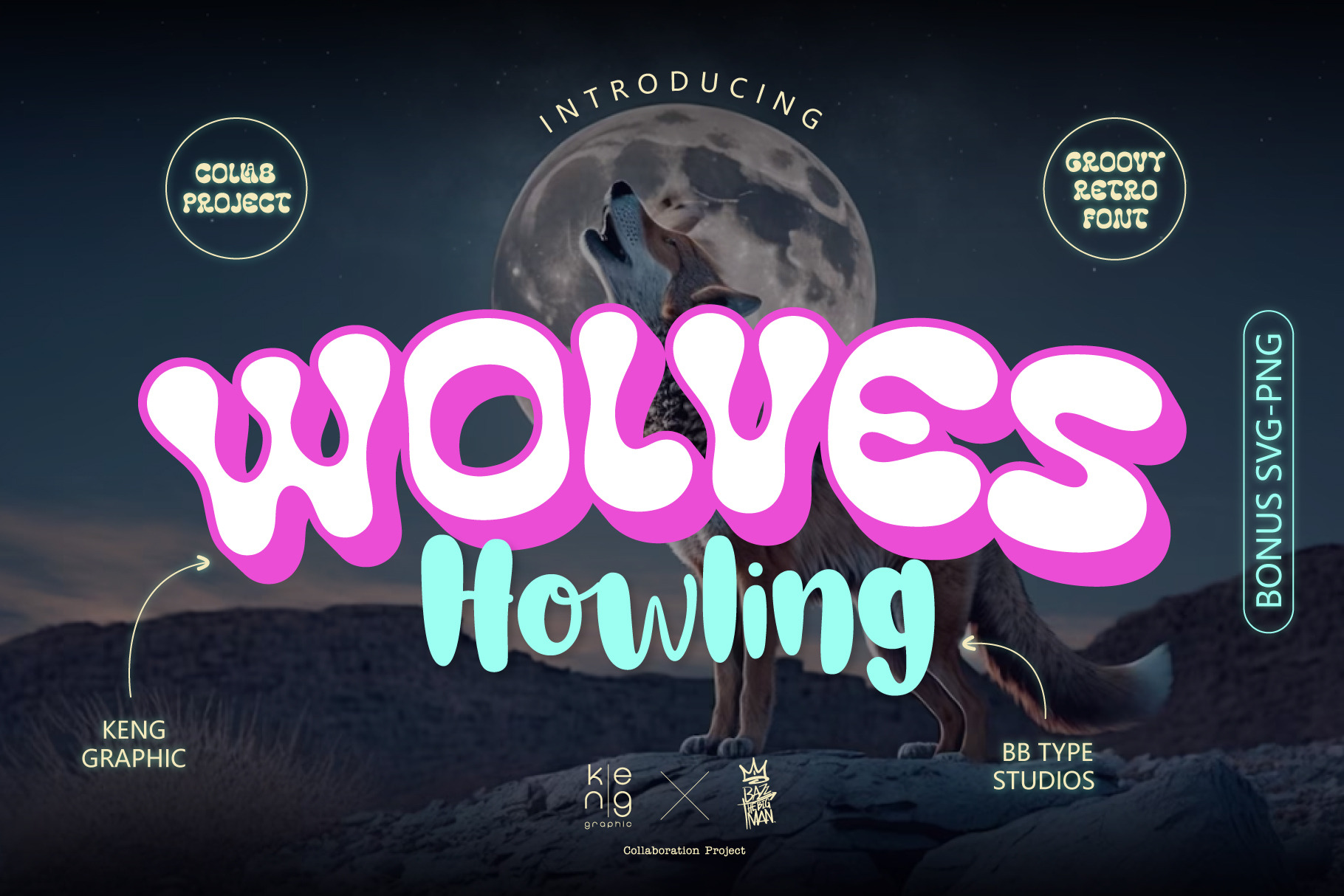
Wolves Howling Font
Wolves Howling is a Display font Groovy Retro Style. Anything written in this font will be instantly recognizable and will grab attention. It will work great for comic book layouts, online games, cards, shirts, hats, bags, mugs, posters, movie titles, eye-catching social media posts. or anything that requires youth and courage.